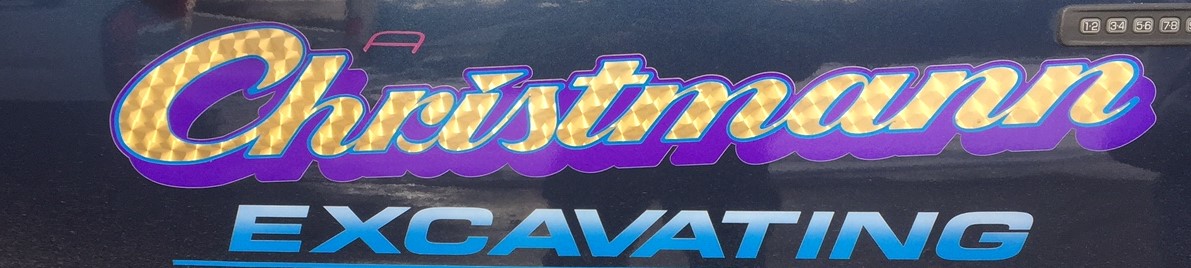
Excavating is Eurostile Extended Bold (or Square Extended Bold) that has been slanted.
Thanks for the help, I think Christmann is not Ballantines the C and the r are way different. Never had this problem before on a font find my font always was pretty close but not this time still trying to search any help is always welcome